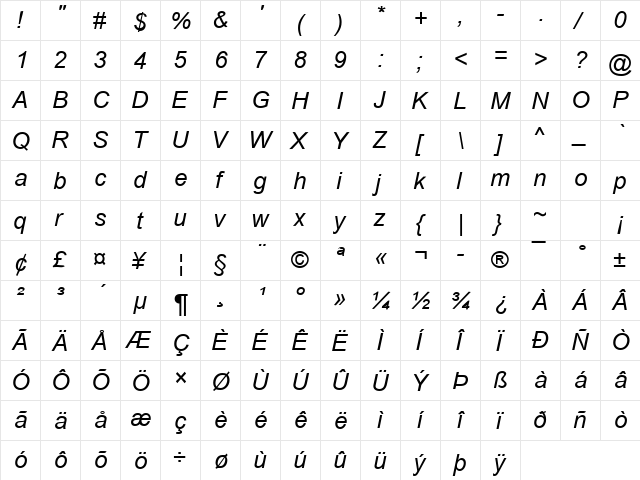
Communication40 Italic
Design Context for Communication40 Typeface
Communication40 is a composed and adaptable typeface that performs quietly and consistently across a wide range of design contexts. The slanted form adds forward momentum and visual energy.
Pro Tip: Try Communication40 for annotation and caption copy alongside an upright companion — the contrast in angle creates a dynamic but ordered typographic system.